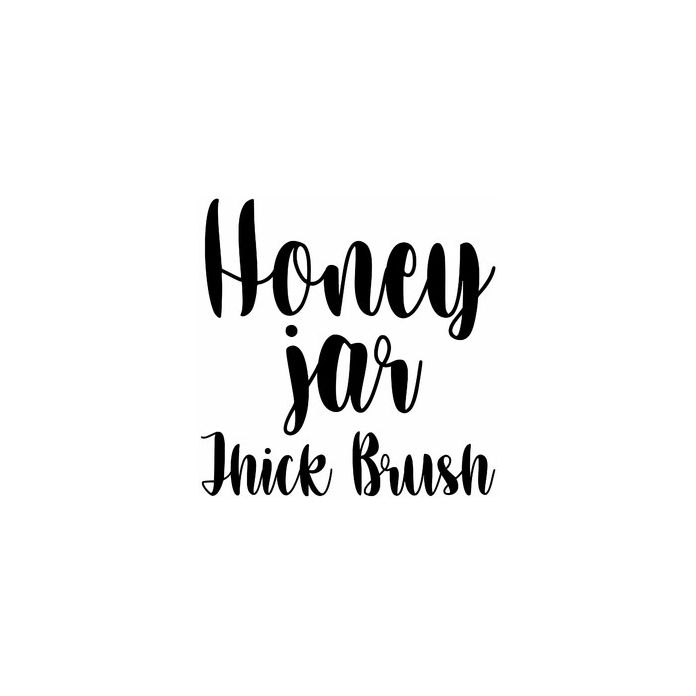
Honey Jar is a thick brush script font, pretty for cards, labels, personalization, monograms, planning, signs, and projects. Includes alphabet, numbers, and punctuation.